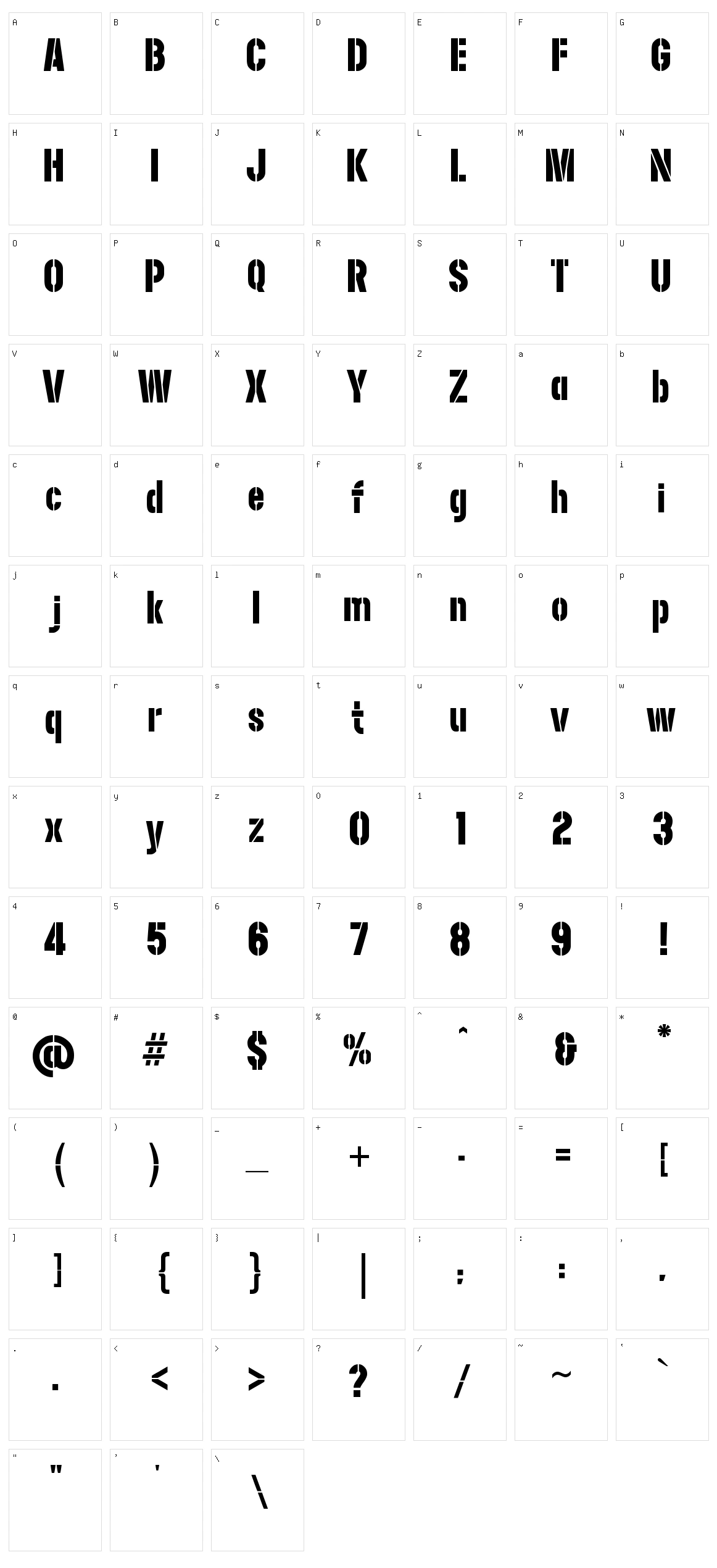
The free font NFL Packers is carefully designed by Sports Fonts, showcasing a thoughtful balance of creativity and usability and falls under the Stencil font style. When you download the ZIP file, it contains only 13.24 KB of font files, making it lightweight and quick to download. Please review the license details below to understand permitted usage and distribution rights. If license information is not available, we recommend using this font for personal projects only or contacting the author directly for commercial usage permissions.